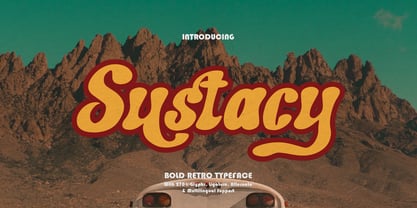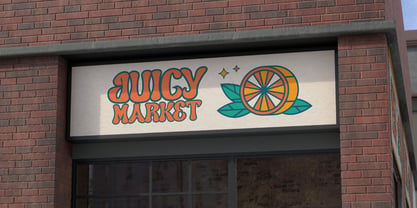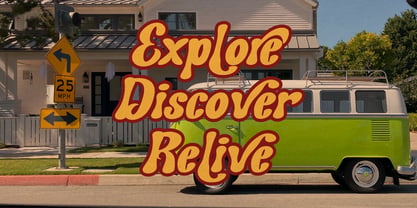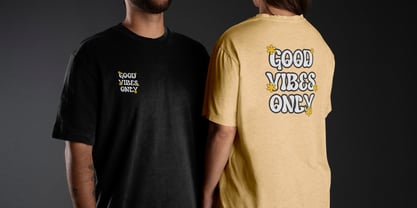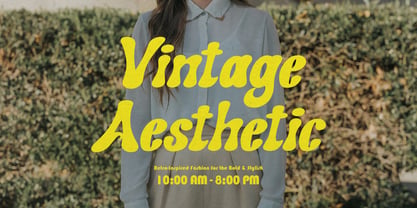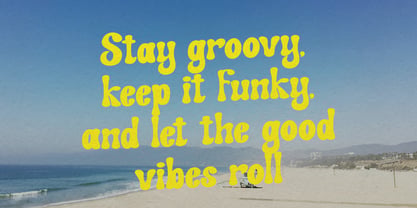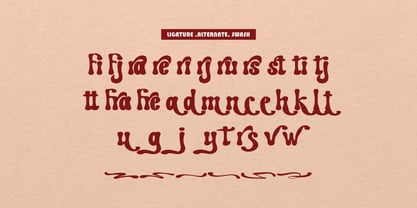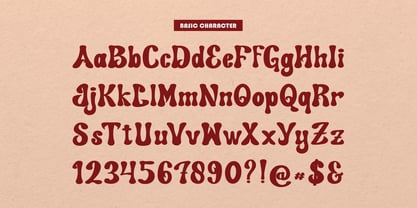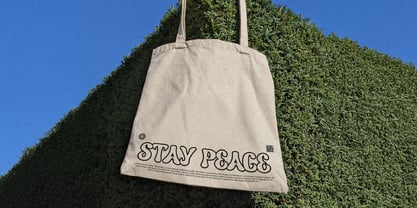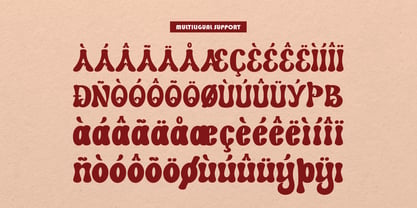
Sustacy
Sustacy | Retro Bold Typeface, from Gracetypestudio, suitable for any projects such as: logos, branding projects, homeware designs, product packaging, mugs, quotes, posters, shopping bags, t-shirts, book covers, name card, invitation cards, greeting cards, label, photography, watermark, special events, and all your other lovely projects that need a Retro Bold Typeface taste.
• Regular and Italic
• Alternate and Ligature